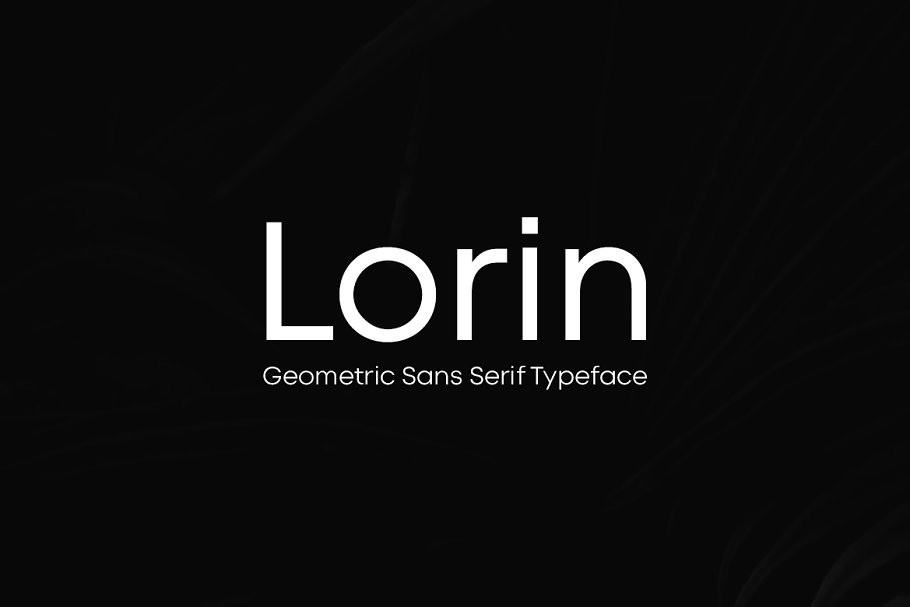
Lorin Font
Lorin Font is perfect for elegant fashion boutiques, sophisticated women's lifestyle brands, graceful beauty salon identity, refined jewelry campaigns, upscale wellness centers, and luxurious feminine product packaging. Its charming character makes it ideal for bridal service providers, high-end cosmetics brands, premium spa retreats, elegant event planning, sophisticated fashion magazines, and any project requiring feminine sophistication with timeless grace and contemporary elegance.
This font is exciting because it captures the essence of refined femininity and sophisticated grace while delivering exceptional functionality for luxury lifestyle communications. The beautifully balanced letterforms evoke feelings of elegance, warmth, and authentic beauty, creating powerful emotional connections that resonate with audiences who appreciate genuine sophistication, personal refinement, and the timeless appeal of graceful design in their lifestyle choices.
The Lorin Font family typically includes Light, Regular, Medium, and Bold weights with elegant alternates, graceful ligatures, and sophisticated decorative elements that enhance its refined personality. This comprehensive collection provides designers with versatile tools for creating cohesive brand systems that maintain feminine authenticity while offering creative flexibility for various luxury applications requiring personal touch and sophisticated market appeal.